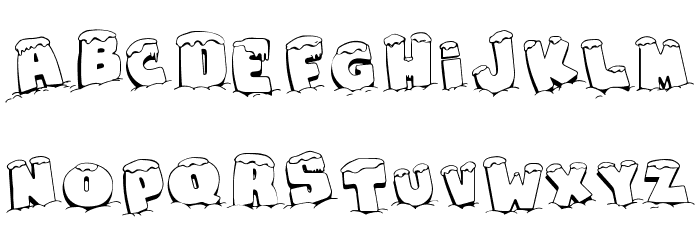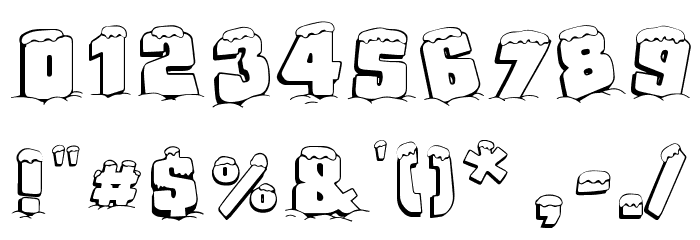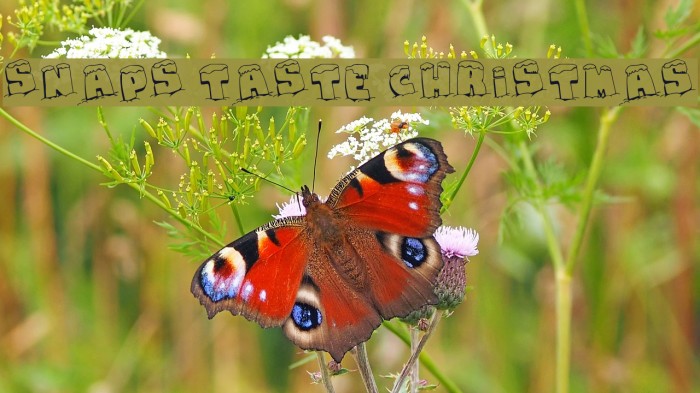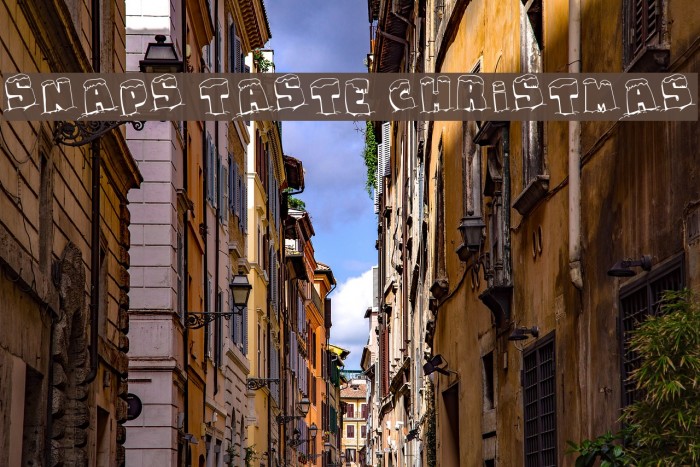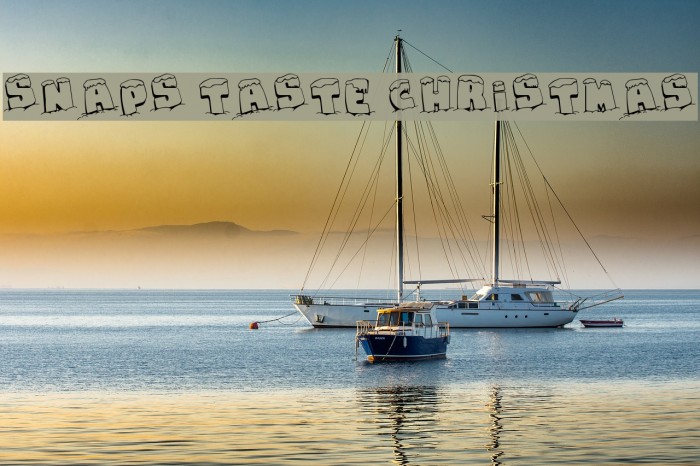
Snaps Taste Christmas Font
This playful and festive font features bold, blocky letters adorned with snow caps, evoking a wintery, holiday spirit. The characters are designed with a cartoonish style, adding a touch of whimsy and fun. The uppercase and lowercase letters maintain a consistent snowy theme, with each character appearing as if it's been dusted with fresh snow. The numbers and special characters follow the same design, ensuring a cohesive look across all text elements. This font is perfect for capturing the essence of Christmas and winter celebrations, making it ideal for seasonal projects.
A festive, snow-capped font with a playful, cartoonish style.
- Proposed Projects: Ideal for holiday cards, festive banners, Christmas-themed posters, and winter event invitations.
- Use Case: Headlines, Logos, Seasonal Promotions